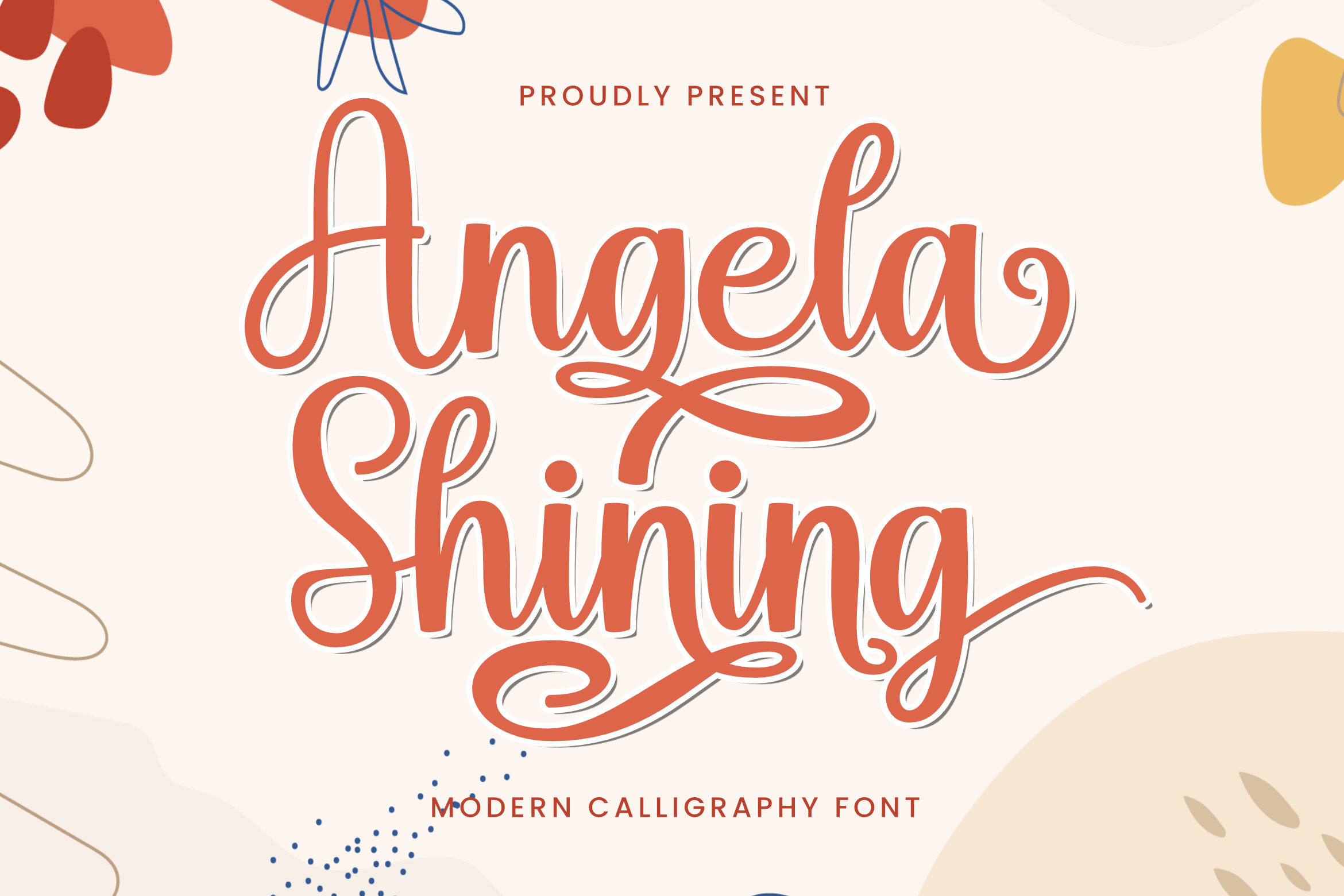
Angela Shining - Romantic And Beautiful Script Font
About Angela Shining - Romantic And Beautiful Script
Angela Shining is a beautiful and romantic handwritten font. It looks amazing on thank you cards, quotes, wedding invitations, greeting cards, business cards, logos, and any other design that requires a touch of handwriting.